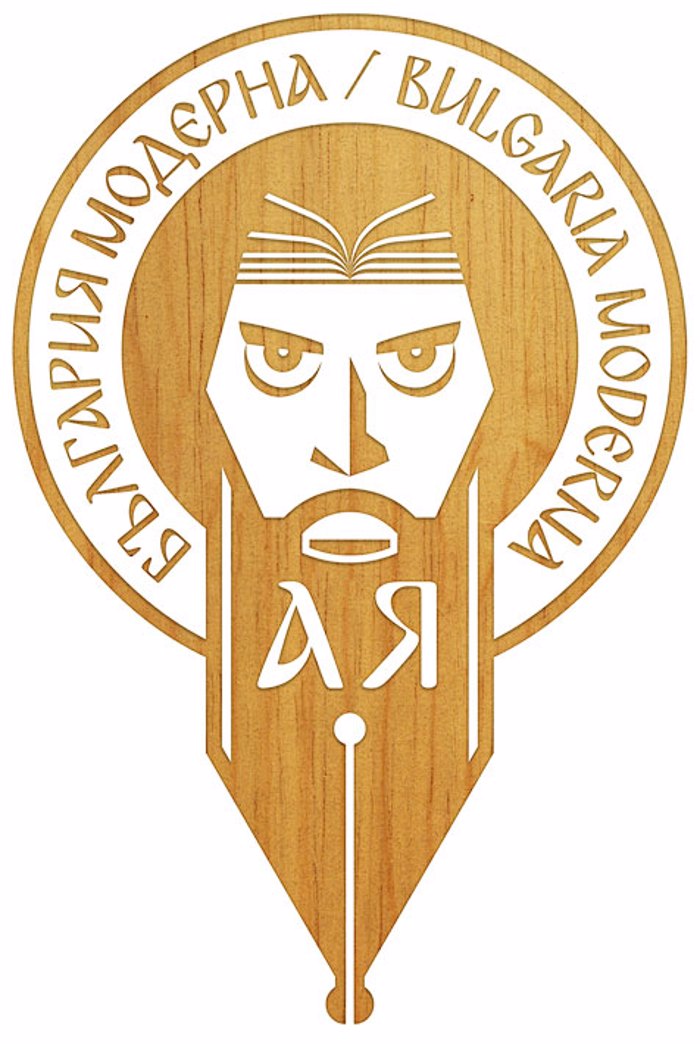
Bulgaria Moderna V3 Font
Bulgaria Moderna is an OpenType font inspired by the aesthetic of the Early Cyrillic script which was developed in the 10th Century Preslav Literary School. The font supports the Cyrillic, Latin and Greek alphabets. For more information visit the official page of the project: http://alphadesigner.com/bulgaria-moderna-font/